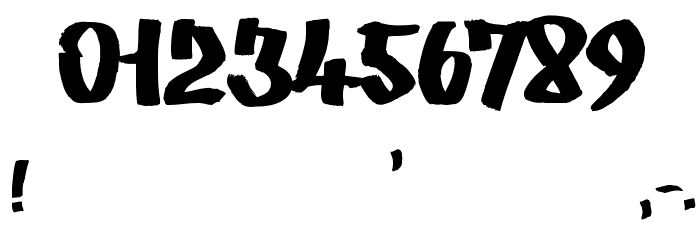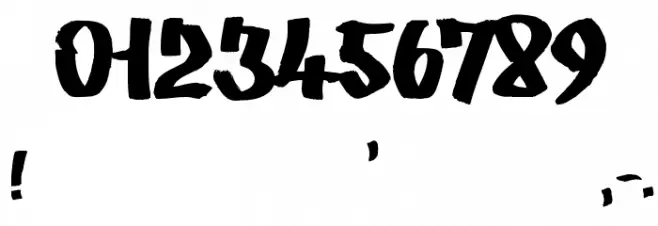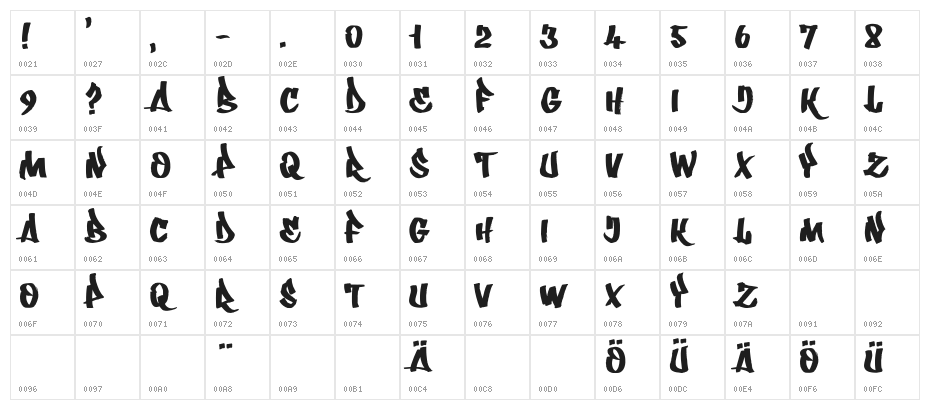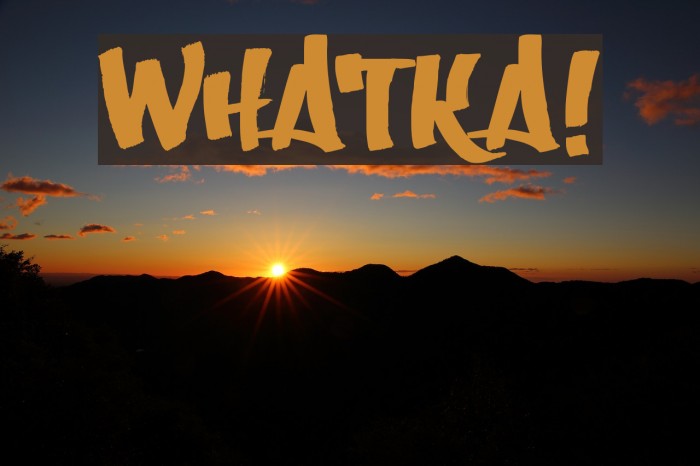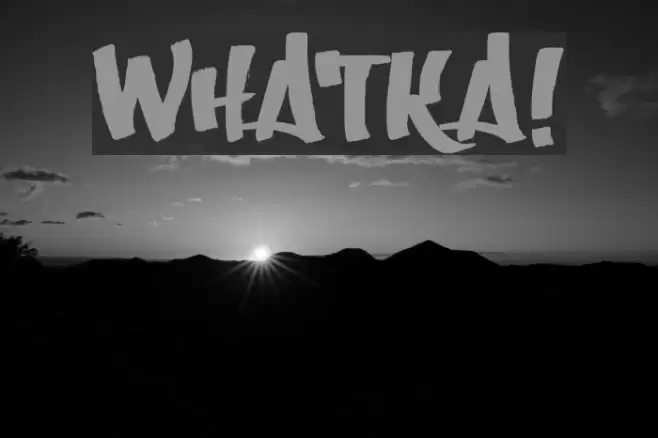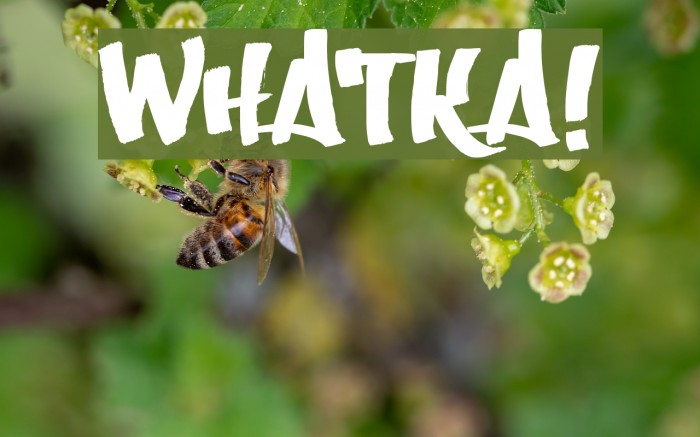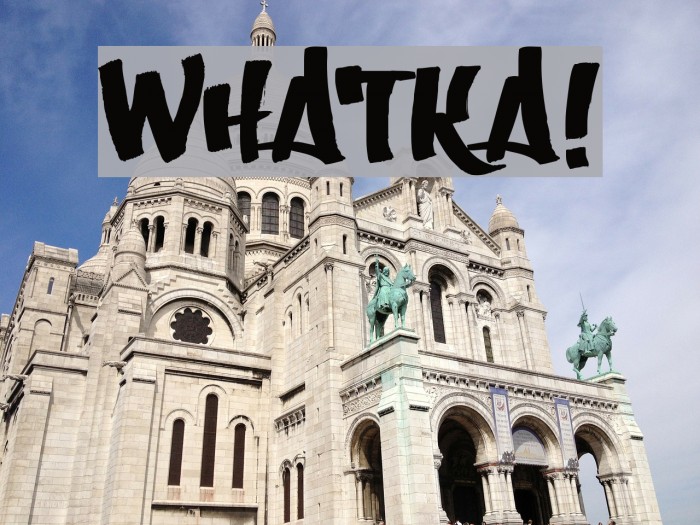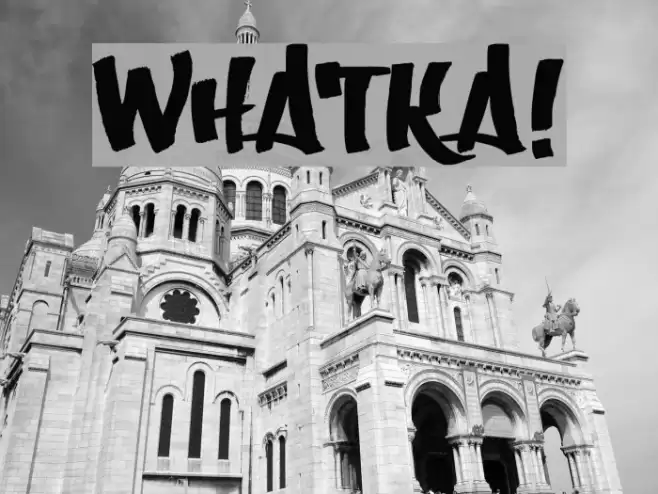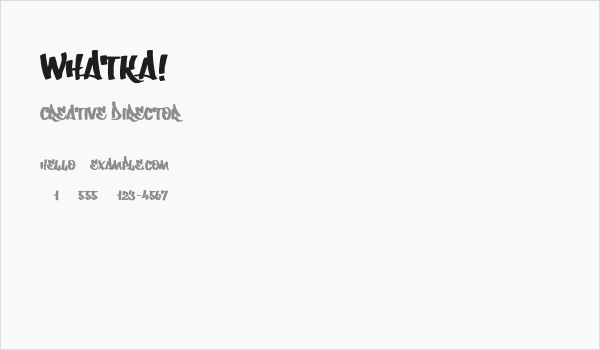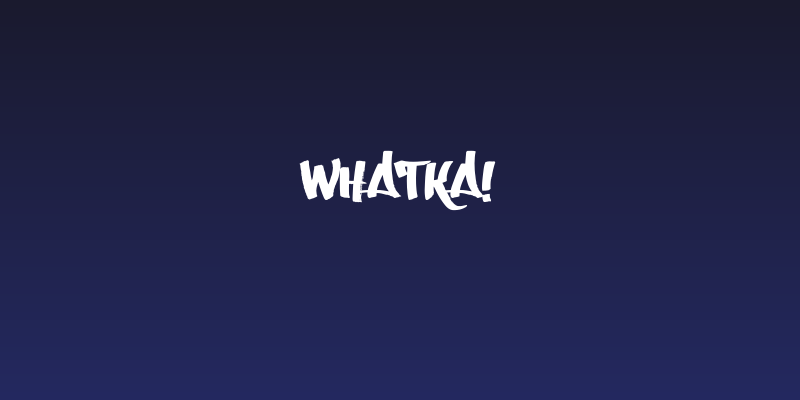
Whatka! Font
Whatka! Description
This font features a bold, expressive style with a hand-painted appearance. The characters are dynamic and fluid, showcasing a brush-like texture that adds a sense of movement and energy. The uppercase and lowercase letters maintain a consistent style, with thick strokes and sharp edges that convey a sense of urgency and creativity. The numbers and special characters are equally bold, ensuring a cohesive look across all elements. This font's unique style makes it stand out, perfect for projects that require a strong visual impact.
| Proposed Projects | Ideal for posters, branding, album covers, and any project needing a bold, artistic touch. |